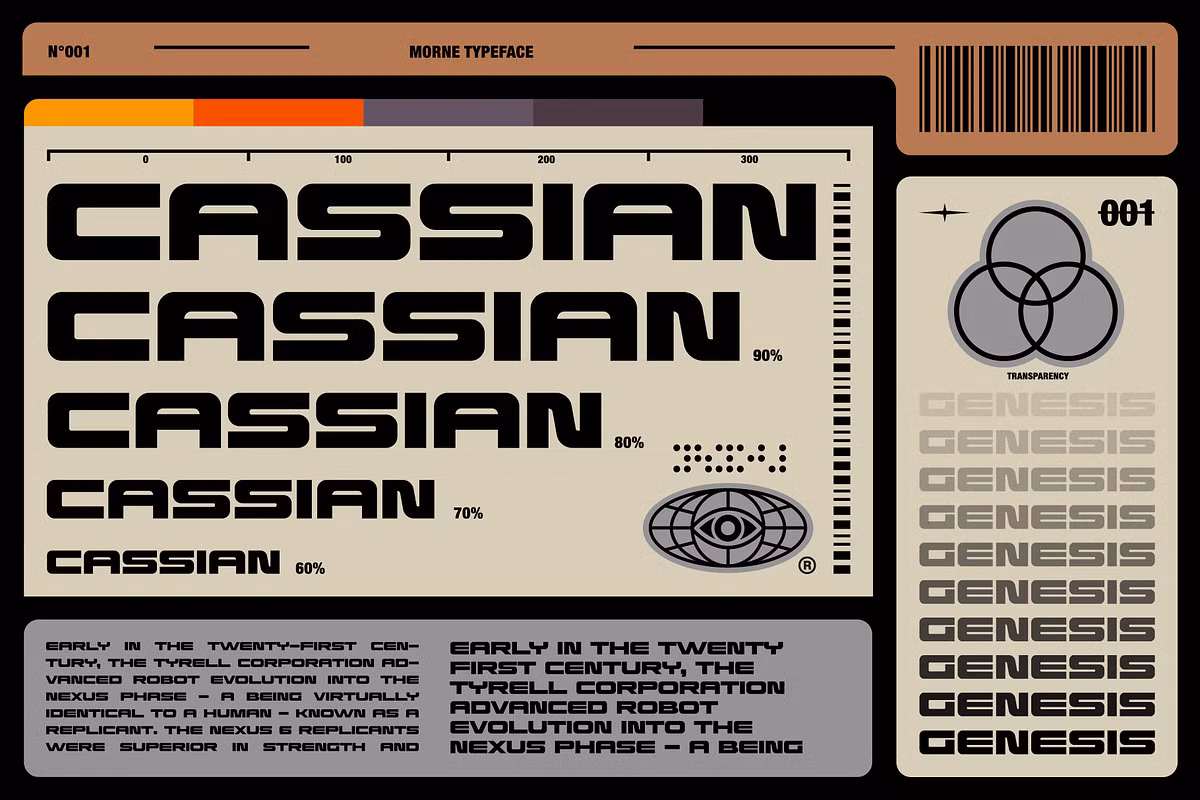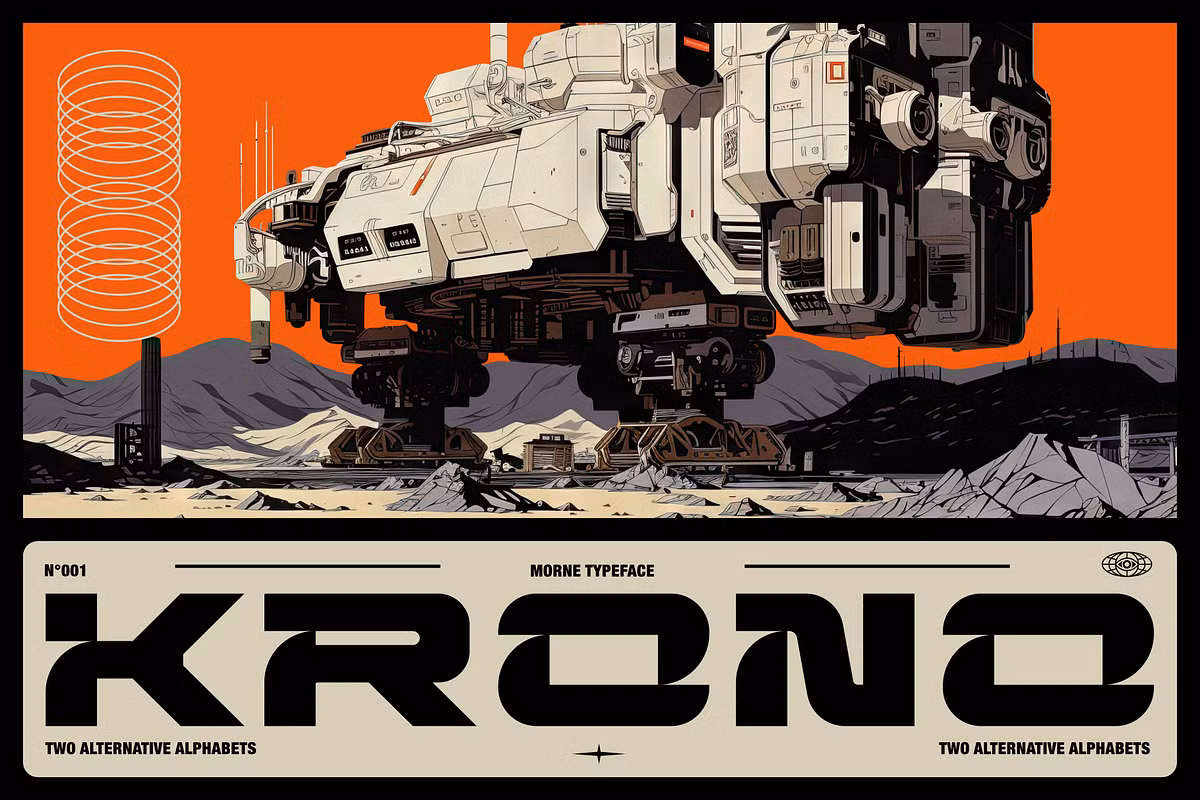
Morne Display Typeface: Bold Typeface for Eye-Catching Design
Meet Morne, the new kid on the block in the world of fonts, and it’s making a big splash. This typeface is perfect for designers who want to make a statement and stand out from the crowd. Whether you’re working on a headline that needs to grab attention, a subheading that needs to be sneaky, or a poster that needs to be bold, Morne is the way to go. It’s all about finding the perfect balance between wide and heavy, so your audience is not just awake, but also completely captivated.
So, let’s take a closer look at what makes Morne Display Typeface a must-have for any designer. With its unique style, it’s sure to add a boost to your creative projects. Morne is designed to help you create something that really pops, and its versatility makes it perfect for a wide range of design tasks. From eye-catching headlines to bold posters, Morne is the perfect choice for designers who want to make a lasting impression.
Morne Display Typeface has a really unique look that’s both strong and elegant. It’s got wide letters and is really bold, which makes it perfect for grabbing people’s attention in headlines and ads. What’s great about Morne is that it’s bold but still easy to read, so it works well on computers, phones, and even in print.
This balance of being bold and clear makes Morne stand out no matter where it’s used. The Morne typeface has a really modern look that makes it great for all sorts of design projects. What designers love about it is how clean and simple the lines are, and the geometric shapes give it a super contemporary feel without making it hard to read.
This means you can use Morne for designs that are really minimalist or for ones that are more elaborate and fancy – it’s totally flexible and lets you express your creativity in lots of different ways. Whether you’re going for something simple and understated or something more complex and eye-catching, Morne is a great choice because it’s easy to read and looks really fresh and modern.
Character Sets
The Morne Display Typeface really stands out with its huge range of characters. What’s really cool is that it has three different versions of every letter and number, so you can give your designs a unique feel. This is especially useful when you’re working on a brand’s identity, because being one-of-a-kind is crucial.
With Morne, you can create a look that’s all your own, and that’s a big deal in the world of branding. Morne is a great font because it has lots of characters – 256 to be exact. This means it’s got all the standard letters and numbers, plus special characters, accents for different languages, and punctuation marks.
So, whether you’re working on a project in English, Spanish, or any other language, Morne’s got the characters you need. It’s really useful for international projects where you need to include text in multiple languages. With Morne, designers can create designs that look consistent and include everyone, no matter what language they speak. This makes it a great choice for anyone working on a global project who wants to make sure their design is inclusive and looks good.
Morne is designed for versatility and can be utilized in various design contexts. Here are some practical use cases:
- Headlines: Use Morne in your marketing materials, advertisements, or online campaigns to create headlines that demand attention.
- Posters: For events, concerts, or exhibitions, Morne can enhance the visual impact of your posters, ensuring they stand out in a crowded space.
- Branding: Incorporate Morne into your logo design or corporate identity materials to convey strength and confidence.
- Web Design: Use Morne for website headings and banners to capture users’ attention right from the start.
These use cases illustrate how Morne can elevate your designs and communicate your message effectively across different platforms.
When it comes to typography, pairing fonts effectively can significantly enhance your design. Here are a few pairing suggestions for the Morne Display Typeface:
- Morne & Open Sans: Pairing Morne with Open Sans creates a striking contrast between boldness and simplicity, ideal for modern designs.
- Morne & Lora: This combination of Morne’s boldness with Lora’s serif elegance provides an excellent balance for editorial designs.
- Morne & Roboto: For a clean and contemporary look, combining Morne with Roboto can add depth to your projects while maintaining readability.
These pairings can help you achieve a harmonious and visually appealing design aesthetic while utilizing the remarkable features of the Morne typeface.
Whether you’re working on a poster, a website, or a magazine, Morne is a great choice. It’s got a lot of personality, so it can help your designs stand out and get noticed. If you want to take your designs to the next level, you need to add Morne to your toolkit. It’s the perfect way to add some excitement and energy to your work, and make your designs really speak to people. With Morne, you can create something truly amazing – so why not give it a try and see what you can do?